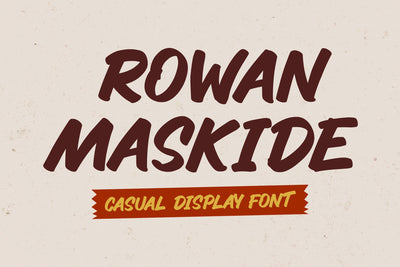
Rowan Maskide - Casual Sans Font
A casual script font and combination with Hand Lettering style which gives more modern touch and makes the font looks being customized.
This font is suitable to use as a logotype, product designs, label, watermark, social media posts, apparel, invitation, signboard, sports club, motor/car, special events or anything that need handwriting taste.